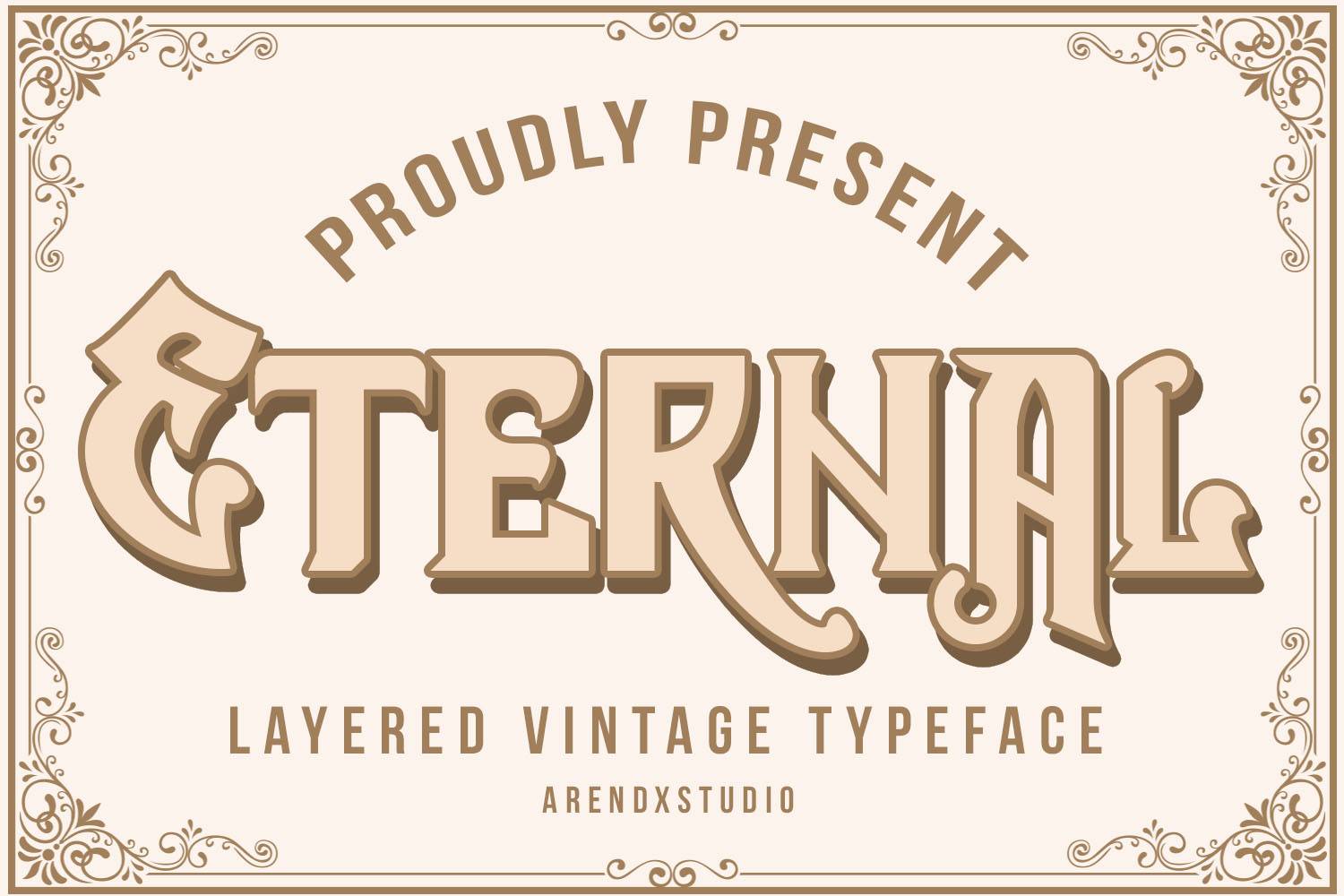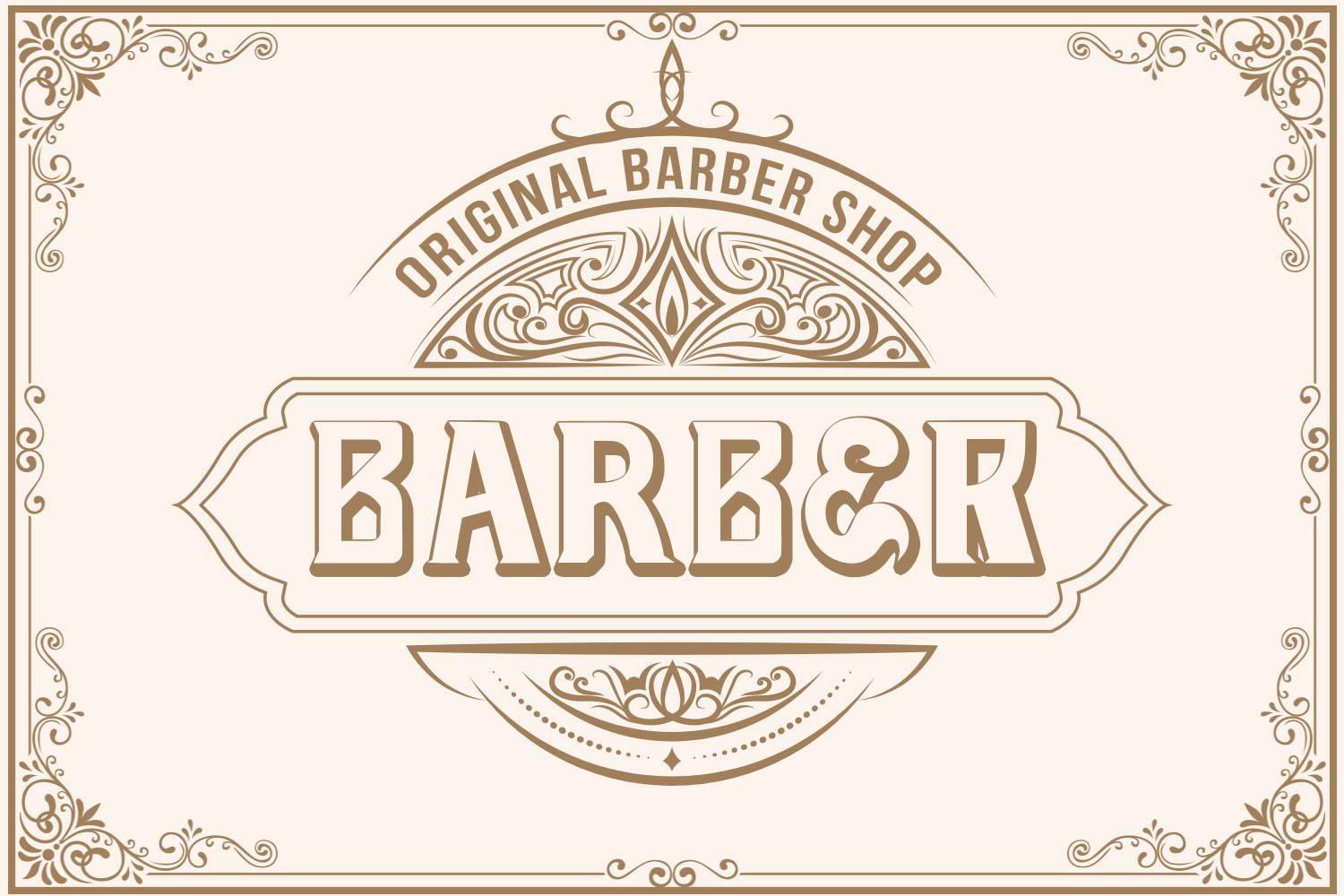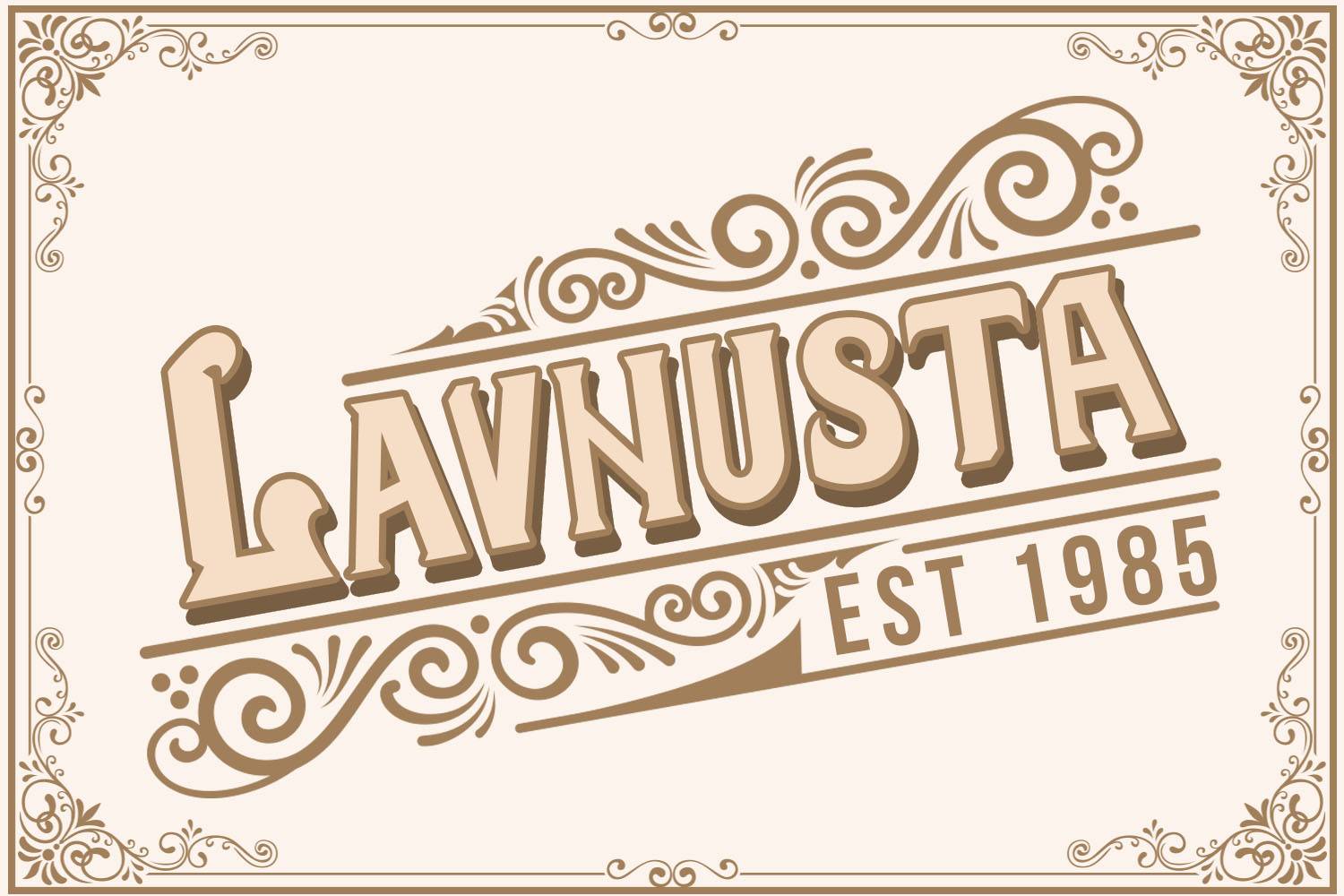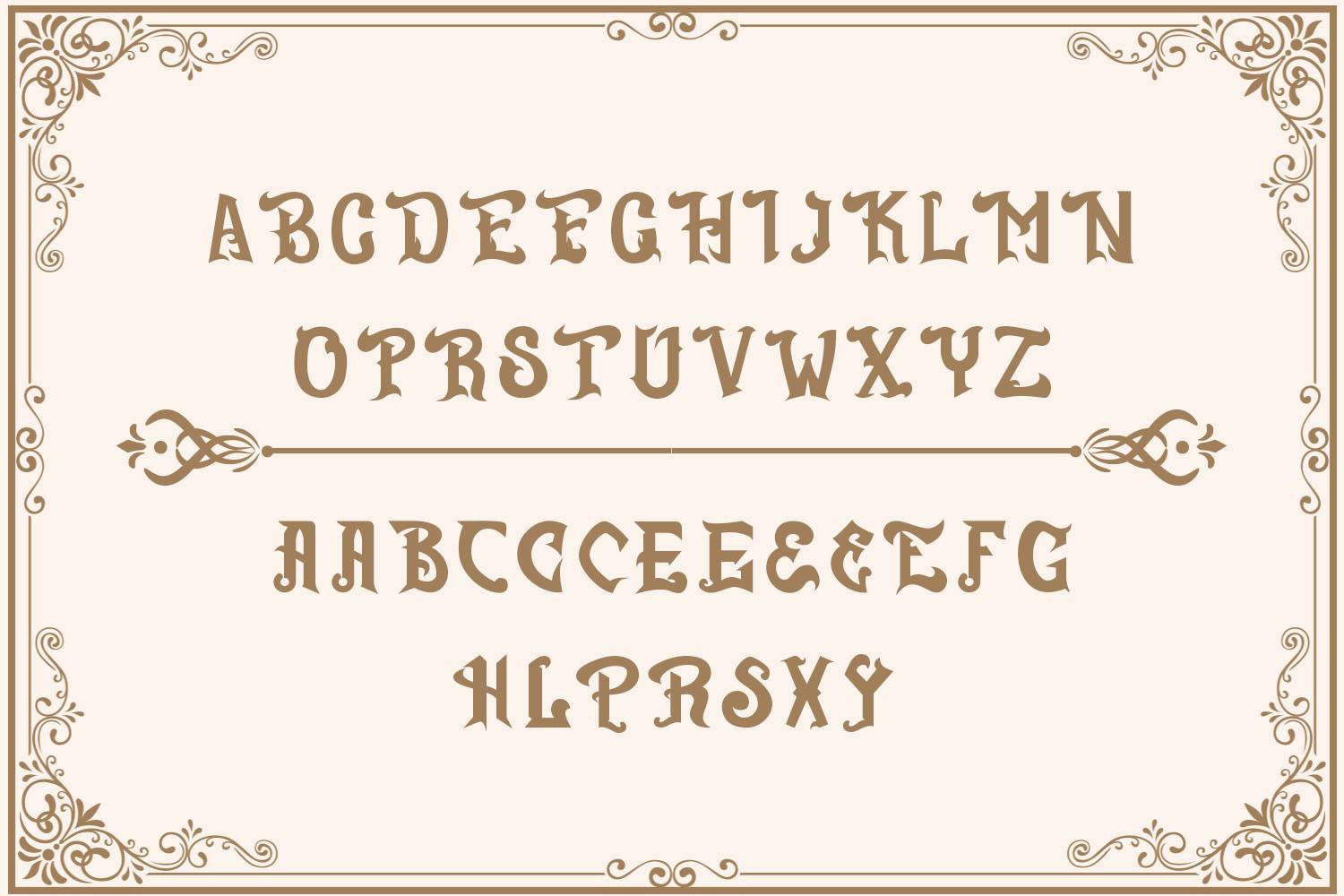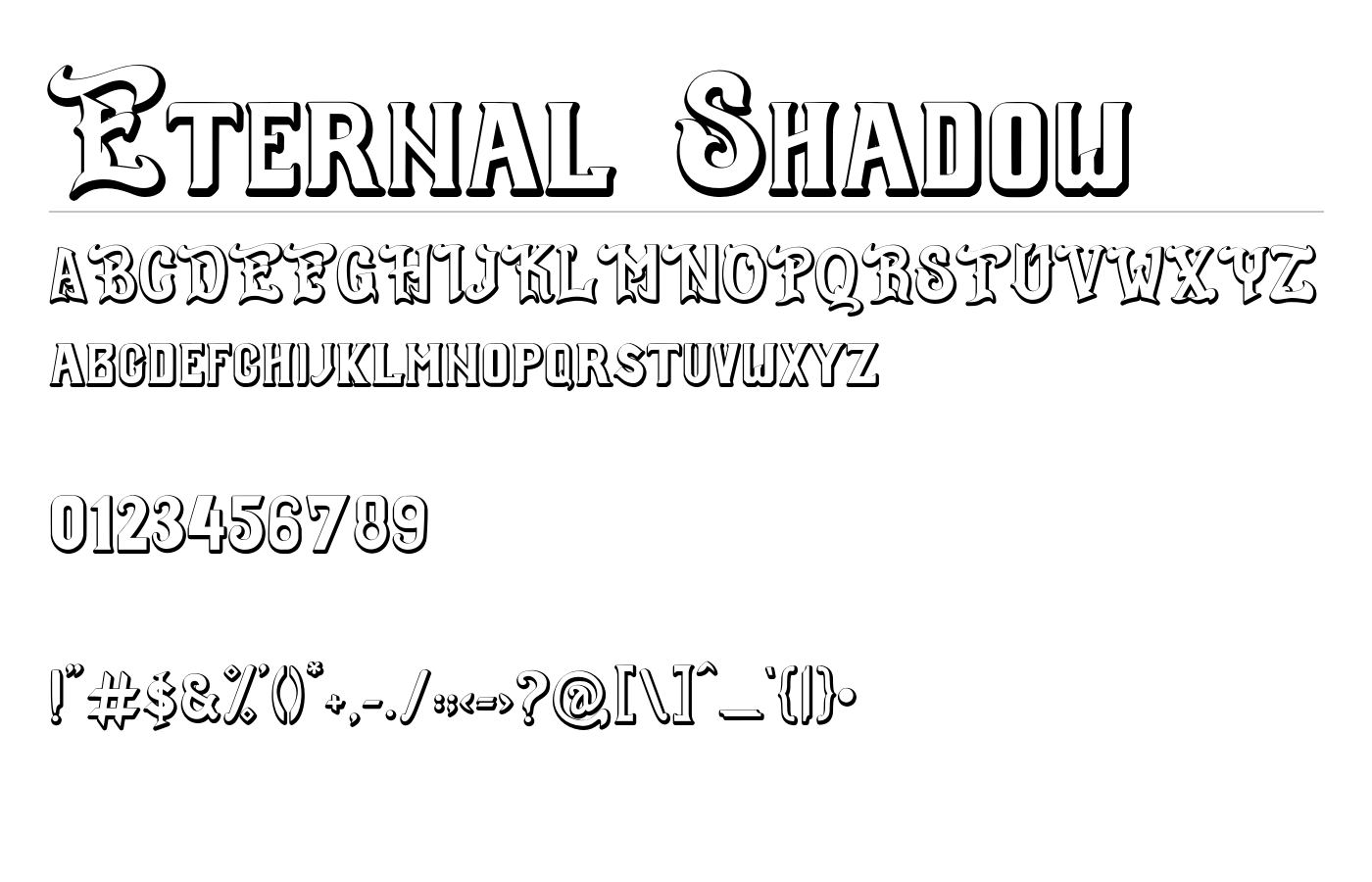
Eternal Shadow is a bold, decorative serif font with a vintage flair, featuring striking shadow effects that add depth and character to each letter. Its ornate, slightly condensed letterforms and strong contrast between thick strokes and fine details make it ideal for eye-catching headlines, logos, or branding that aims to evoke a classic, timeless, and dramatic style. This font works best in display settings where its unique shadow and intricate styling can really stand out.
Eternal Font